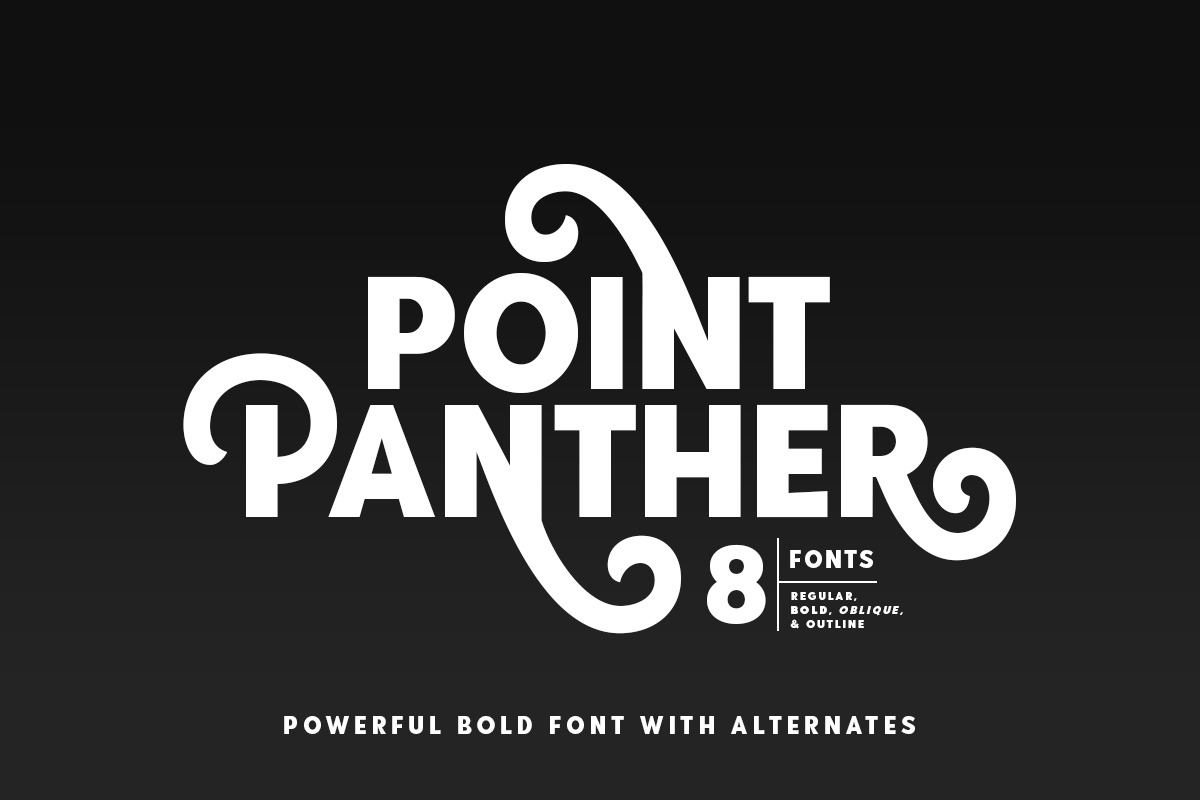
Point Panther (8 BOLD FONTS) Free Download is a powerhouse font collection designed for maximum visual impact. With eight strong and stylish bold typefaces included, this set is perfect for headlines, posters, product packaging, logos, and any project that demands attention. Each font in the collection offers a slightly different edge, giving you creative flexibility while maintaining a cohesive, modern aesthetic.
The boldness of Point Panther is matched by its clean design and sharp structure, making it ideal for both print and digital applications. Whether you're going for a gritty urban vibe or a high-impact commercial look, Point Panther (8 BOLD FONTS) Free Download delivers the versatility and strength to elevate your typography.